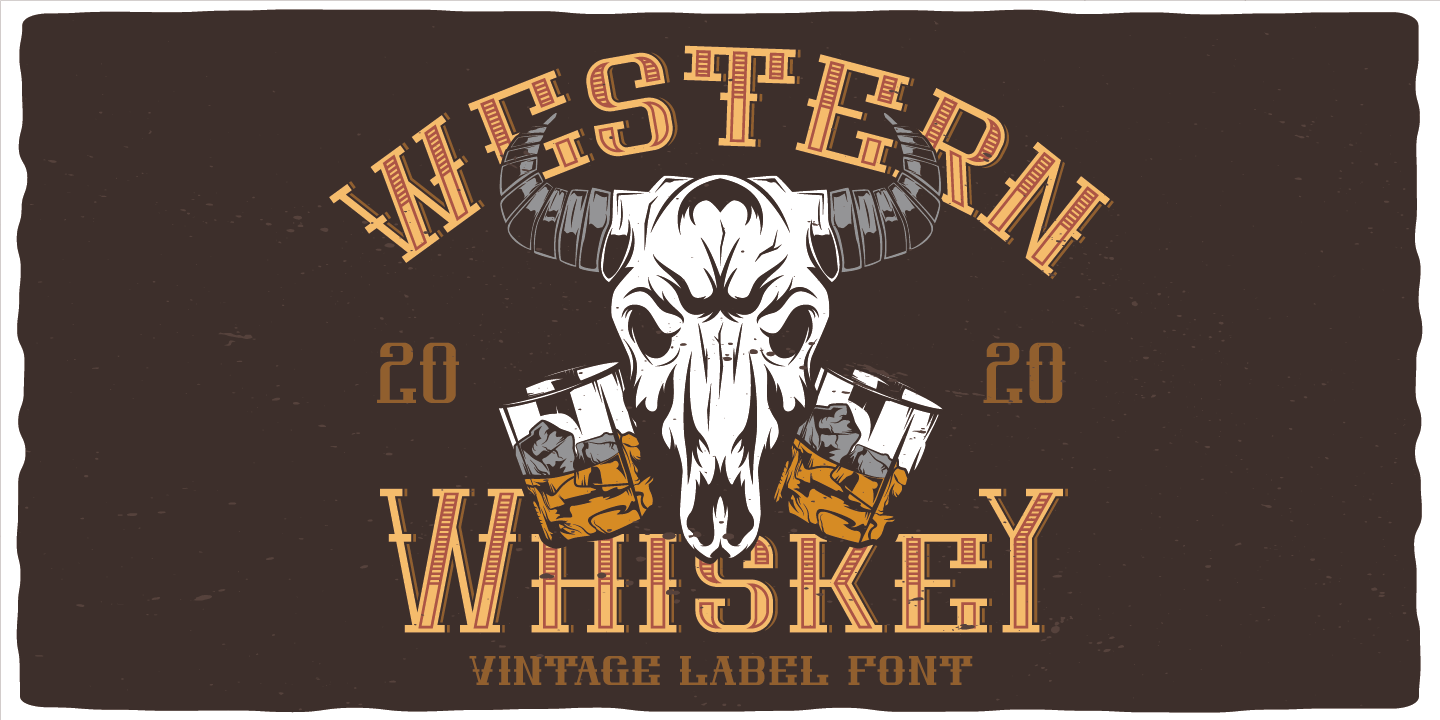
Western Whiskey Font is ideal for distillery branding, saloon-themed restaurants, country music promotions, rodeo event marketing, western apparel companies, bourbon product packaging, cowboy-themed designs, and authentic frontier-inspired communications. This rugged typeface brings Wild West authenticity, frontier spirit, and whiskey-barrel sophistication to any project celebrating the legendary culture of the American frontier and the timeless appeal of western heritage.
What makes Western Whiskey Font exciting is its exceptional ability to capture the raw authenticity of the Old West through letterforms that seem carved from weathered saloon signs and branded into whiskey barrels. The font features bold, rustic character shapes with distinctive western styling, rough-hewn details that evoke frontier craftsmanship, and aged elements that reflect the patina of authentic western artifacts. Its frontier character embodies the independent spirit and rugged individualism of the American West, making it perfect for brands that want to communicate authenticity, heritage, and the untamed spirit of frontier culture.
The Western Whiskey Font family typically includes regular and bold weights with distinctively western-styled uppercase and lowercase letters, frontier numerals, and comprehensive punctuation marks that maintain the font's saloon authenticity and frontier appeal. The design emphasizes rugged heritage while ensuring practical readability for contemporary western-themed branding and frontier-inspired marketing applications that require both character and functionality.
Whether you're creating western brand identities or developing frontier-themed marketing materials, Western Whiskey Font Free Download provides unmatched western authenticity and frontier appeal. This typeface excels in applications where its rugged character can evoke the legendary spirit of the American West and frontier culture. Its authentic aesthetic makes it particularly effective for distilleries, country venues, and western brands that want to associate with heritage and frontier tradition. The font's bold presence helps establish authentic connections while ensuring memorable recognition through typography that honors the enduring legacy of Western Whiskey Font Free Download frontier independence and western heritage.